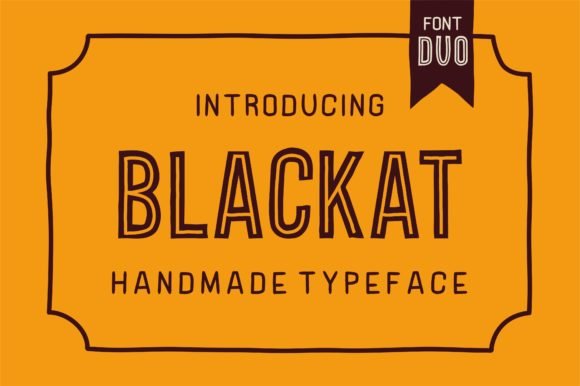
The Perfect Typographic Match: Discover the Blackat Font
You know that feeling when you’re scrolling through social media, and you stumble upon a design that just stops you in your tracks? The typography is on point, the colors are bold, and the overall vibe is just infectious. That’s exactly what happens when you use the right font – and we’re excited to introduce you to the Blackat Font, a cool and trendy display font that’s sure to elevate your designs.
Whether you’re working on a project for a client, creating a personal brand, or just experimenting with new ideas, the Blackat Font is a versatile and stylish choice. Its neat and simple style makes it suitable for a wide range of designs, from logos and headers to social media graphics and more. And the best part? It’s easy to use and customize, making it a valuable addition to any designer’s toolkit.
Blackat Font Key Features
- Unique Characteristics: The Blackat Font features a unique, modern design with a strong, bold aesthetic, making it perfect for creating eye-catching headings and titles.
Blackat Font Review
Overall, I think Blackat Font is a great option for designers looking for a modern, sans-serif typeface. ✨ It’s clean, sleek, and highly legible, making it perfect for digital designs such as website headers, mobile apps, and social media graphics. The font is highly versatile and can be used in a variety of contexts, from formal to informal.
One of the things that works well about Blackat Font is its large character set ✨, which includes a wide range of languages and script styles. This makes it a great choice for designers working on projects that require a global audience. Additionally, the font is highly customizable, with a range of weights and styles to choose from.
- ⚠️ The font may not be as suitable for print designs, as it can appear slightly pixelated at small sizes.
- ⚠️ Some users may find the font too modern or minimalist, which may not appeal to those who prefer a more traditional or ornate typeface.
Overall, I would give Blackat Font 4 out of 5 stars. It’s a solid choice for designers looking for a modern, versatile typeface that can be used in a variety of contexts. However, it may not be the best option for print designs or those who prefer a more traditional typeface.
Getting the Most Out of Blackat Font
For best results, use the Blackat font in bold or italic styles to add emphasis to your text.
Combine the font with bold graphics or illustrations to create a striking visual effect.
Use the Blackat font for:
Headings and titles in designs and presentations.
Emphasizing key points in text-based content.
Creating a unique and eye-catching visual identity for your brand or project.